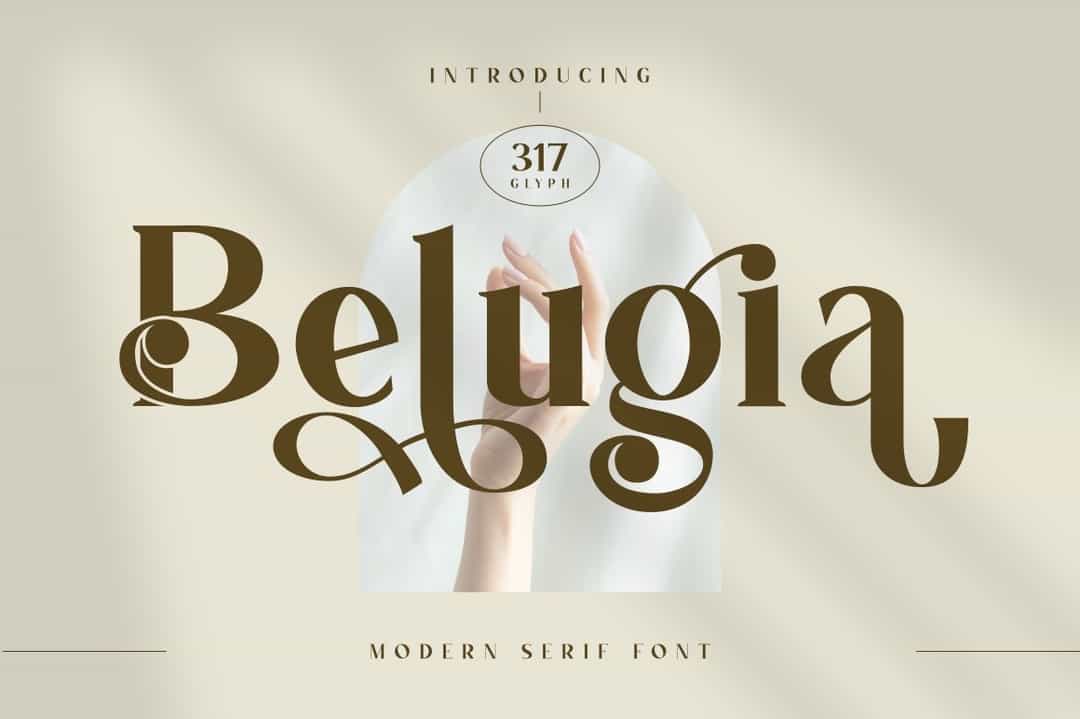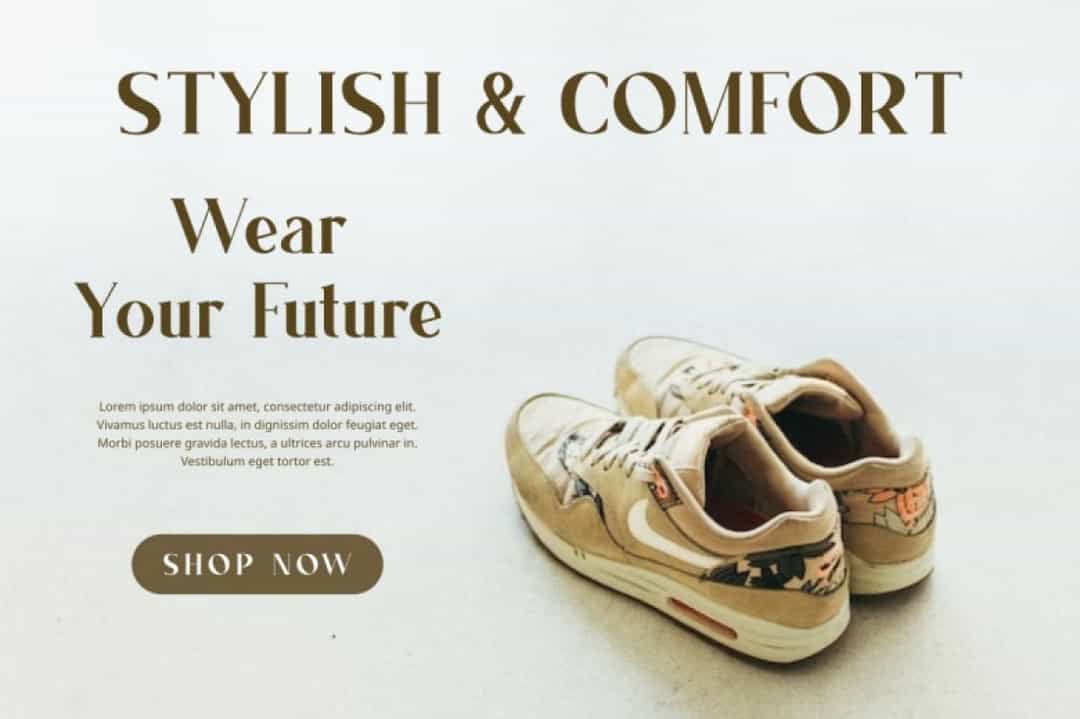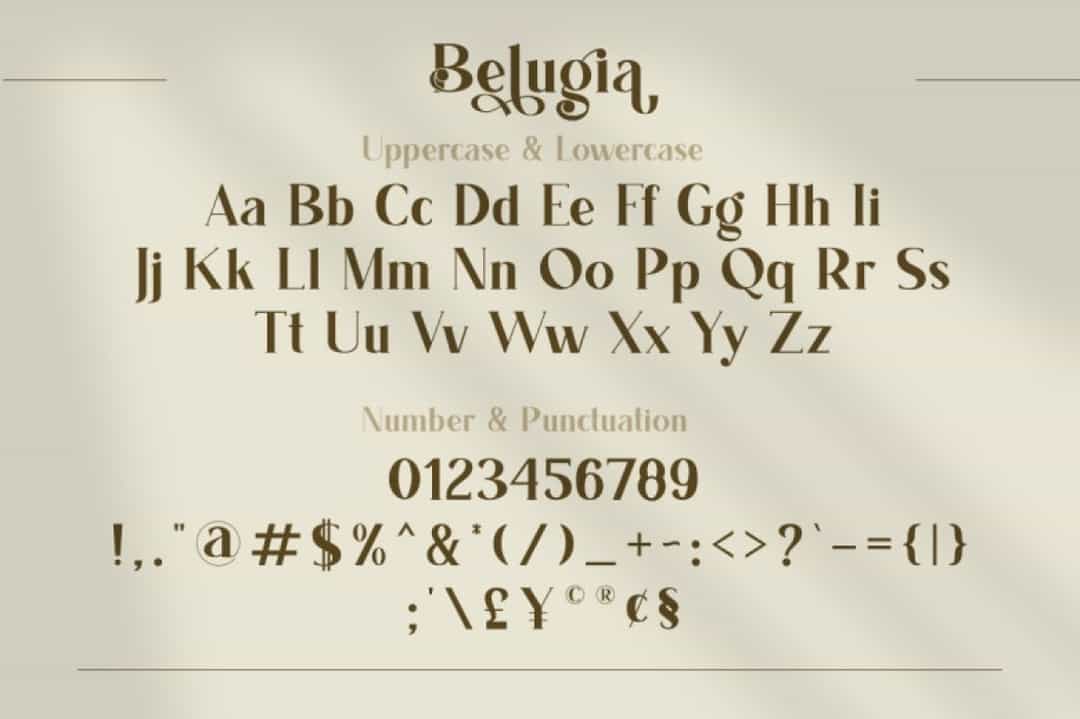
Belugia is an elegant serif typeface featuring contrast between thin and thick strokes in its glyphs. Crafted using straight lines and smooth curves, this font exudes elegance and professionalism – offering many letters and ligatures to make typography stand out and stand out!